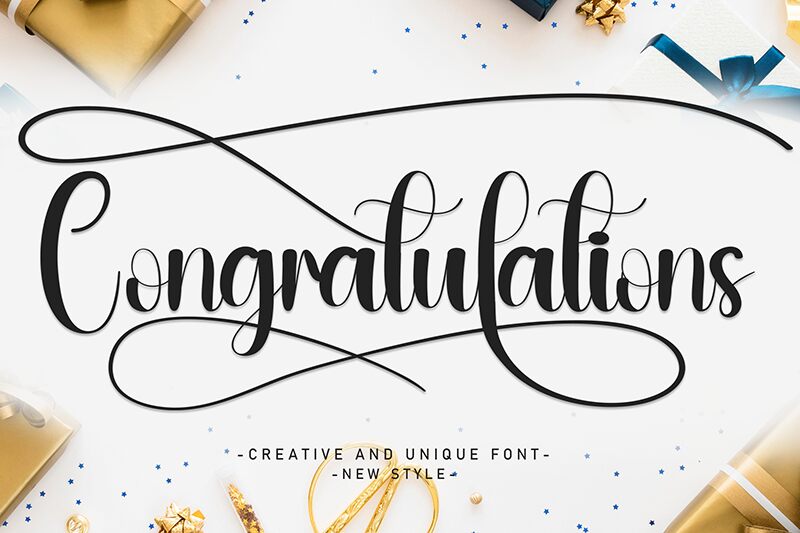
Anteprima del carattere Congratulations
Congratulations font is a graffiti typeface by Andi Moz. Combining the best of street art’s artsy elements and modern aesthetics, this free font introduces elegance in all its forms. It is decorative but not too much to complicate character legibility with smoothly flowing letters that are hypnotizing, expressive, and friendly.
Presentazione e campione visivo del carattere Congratulations